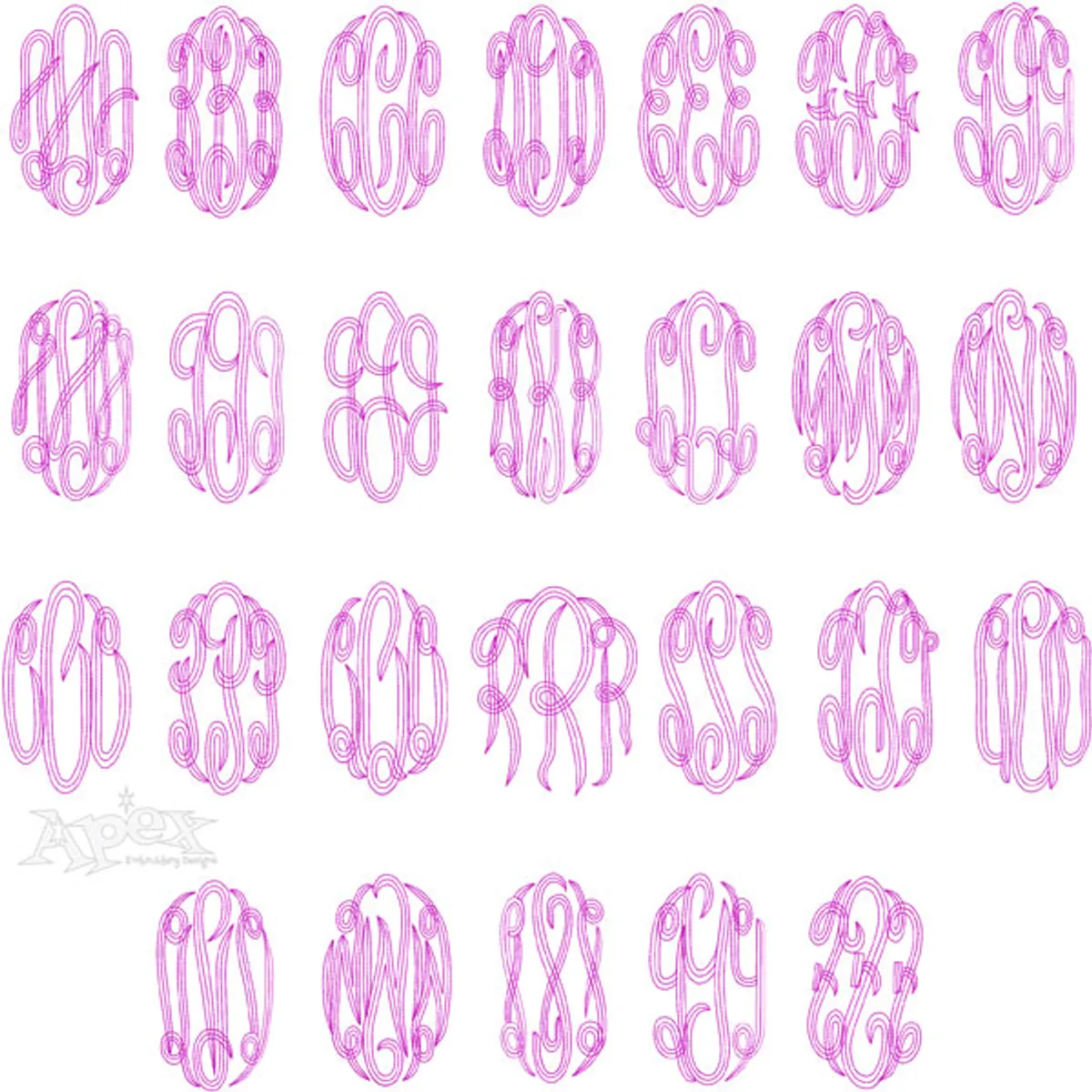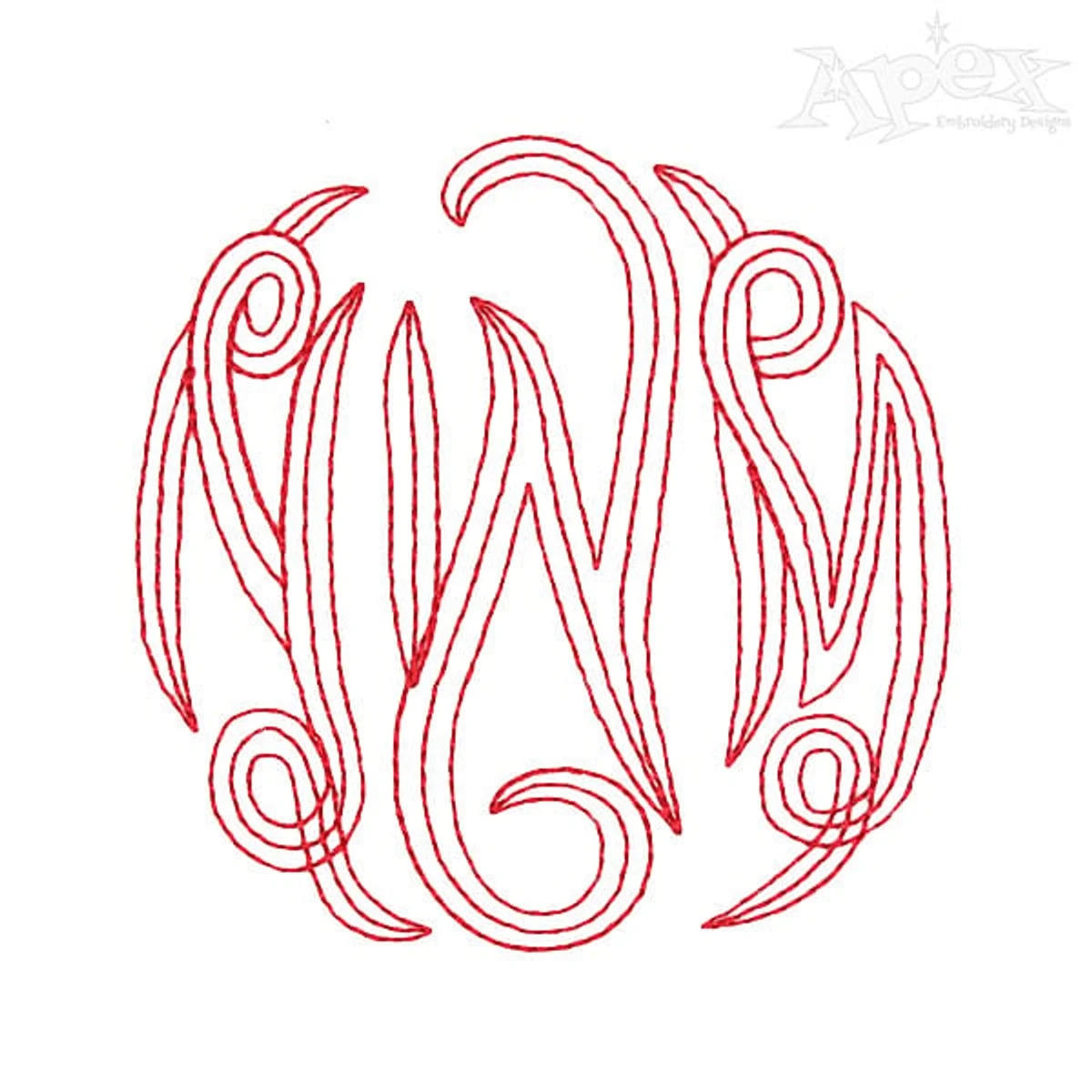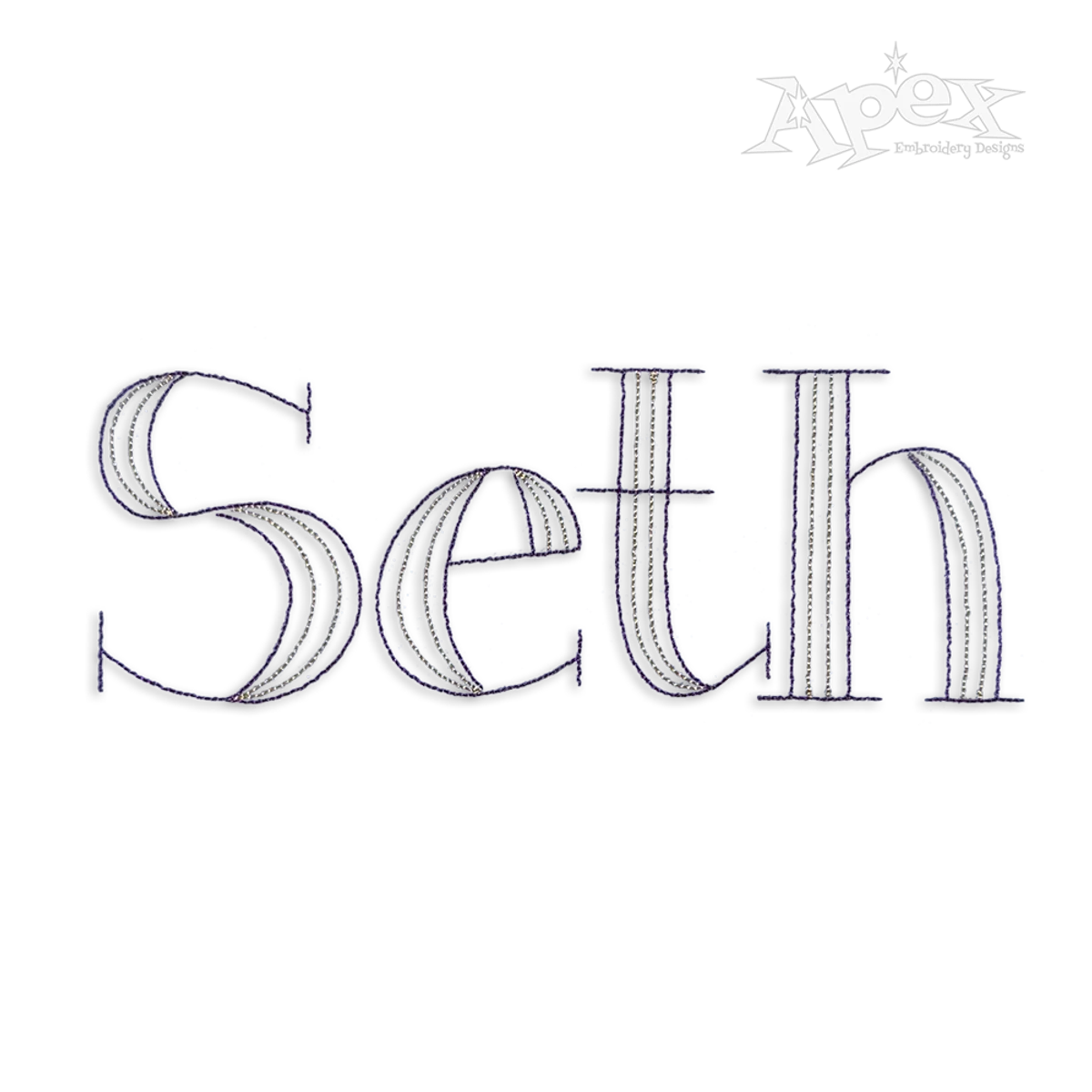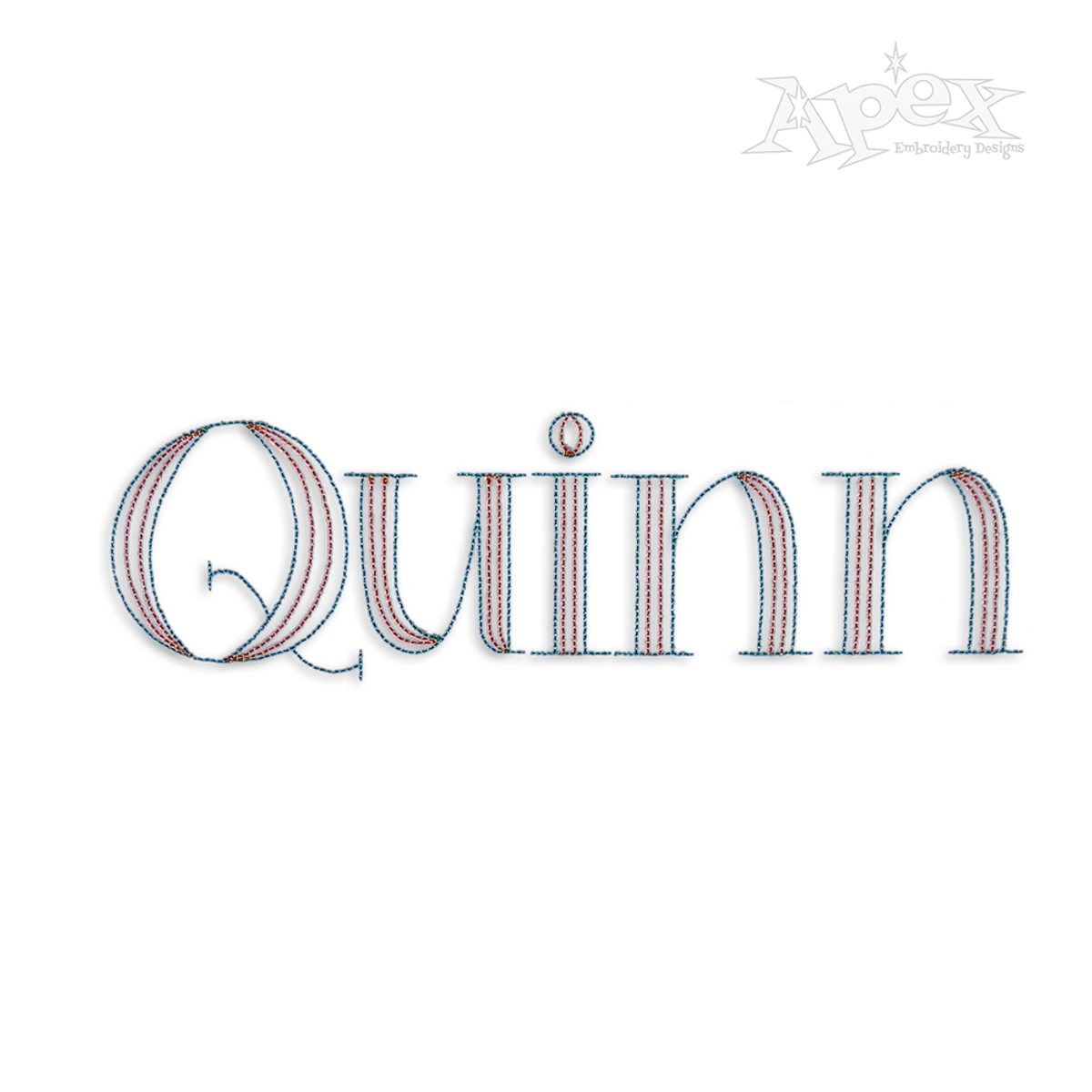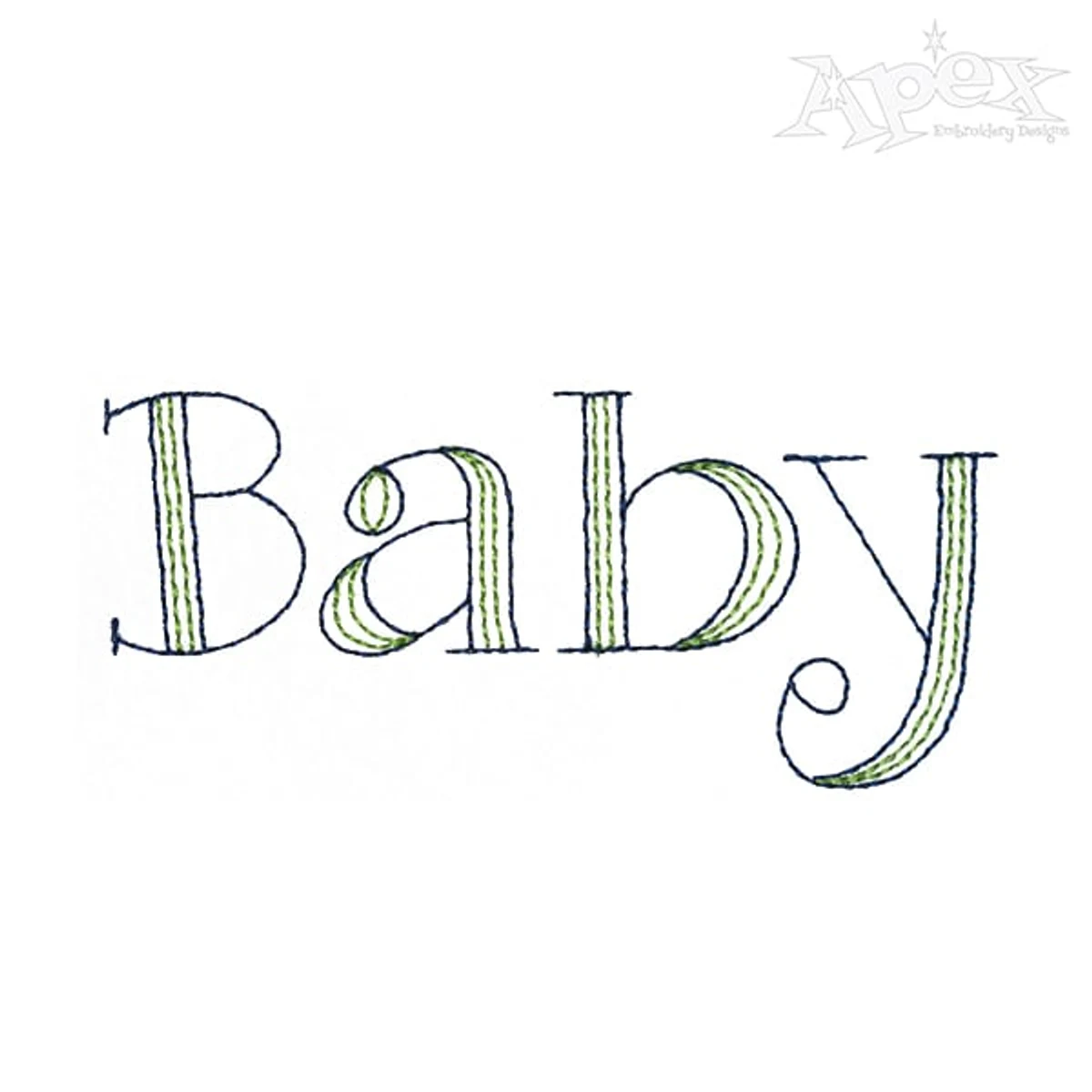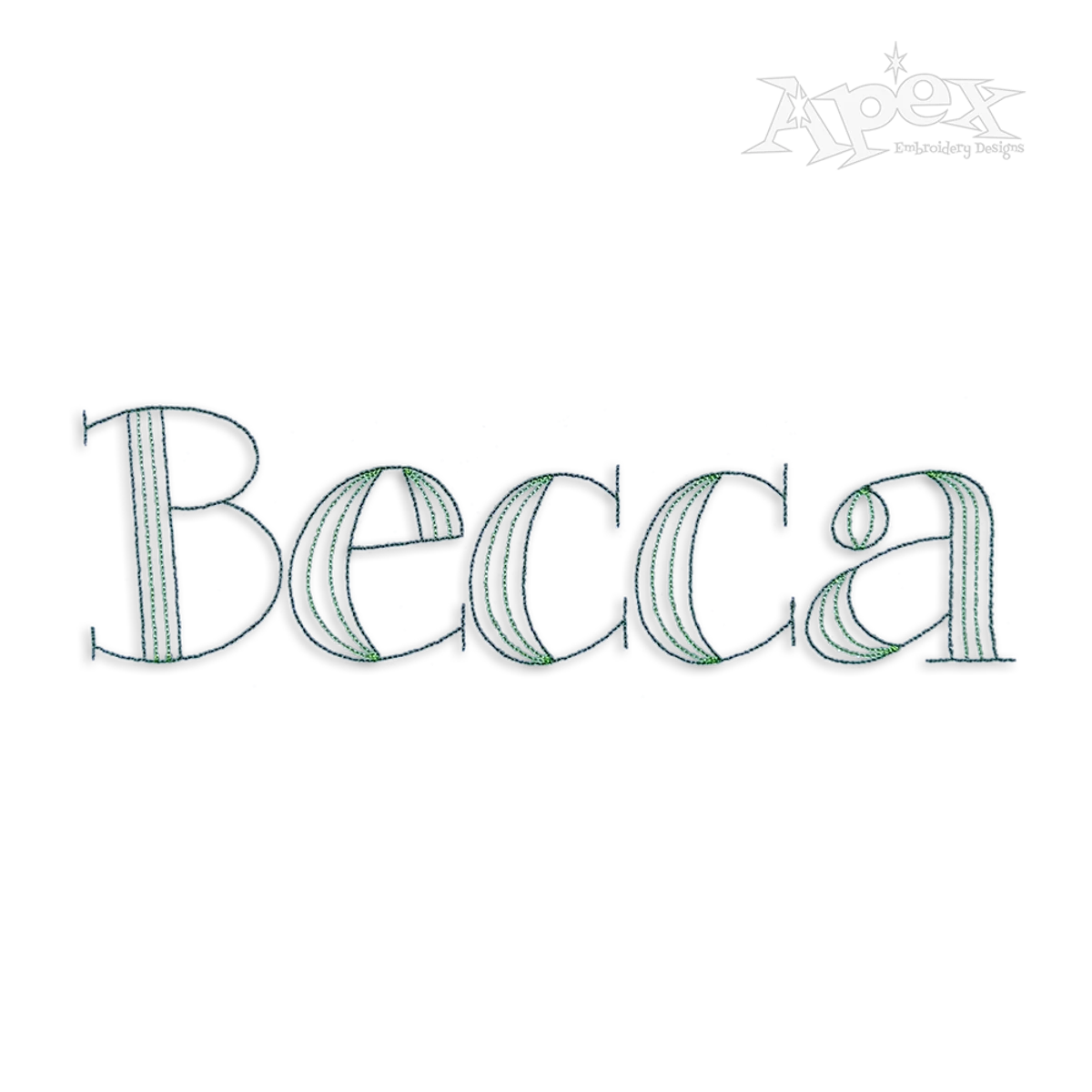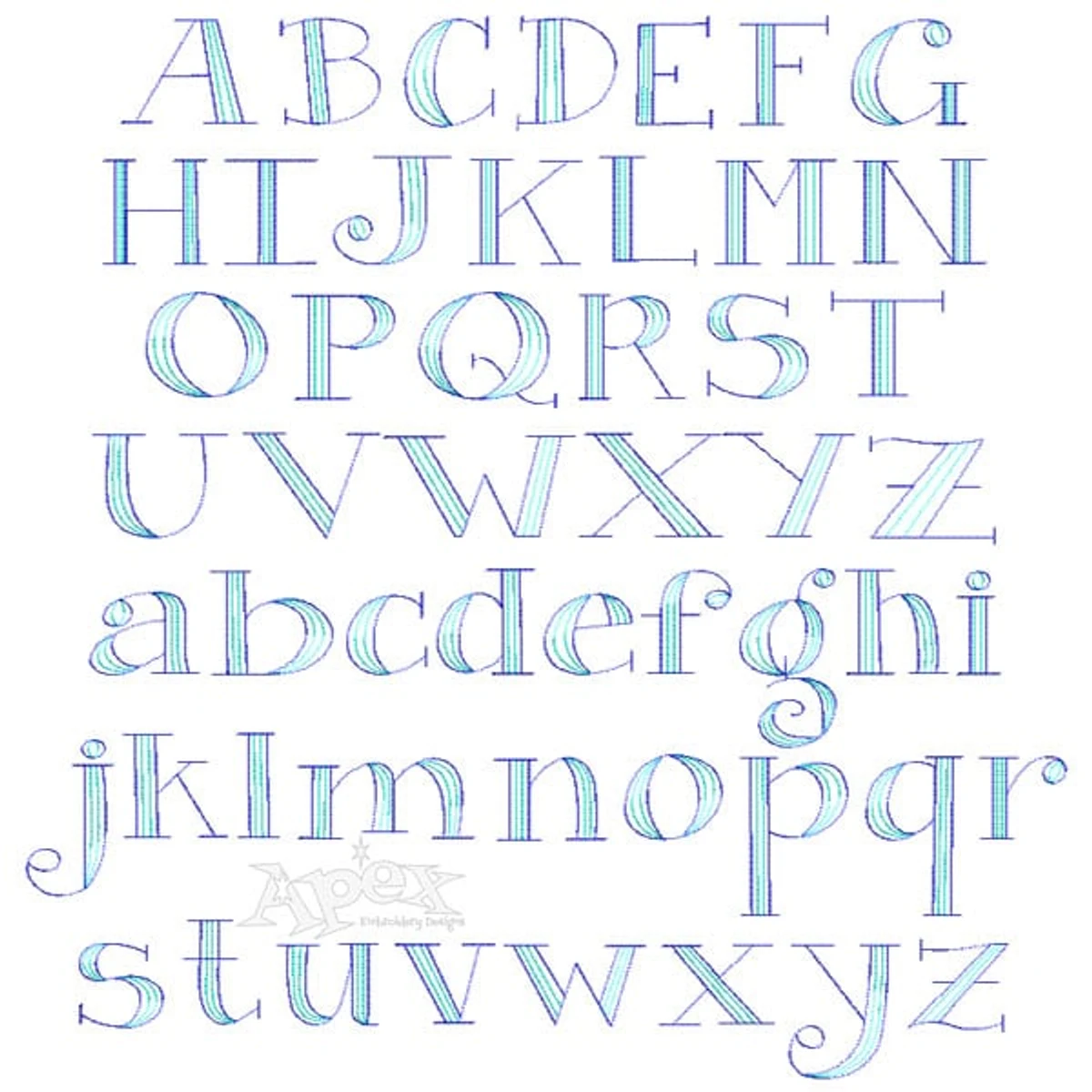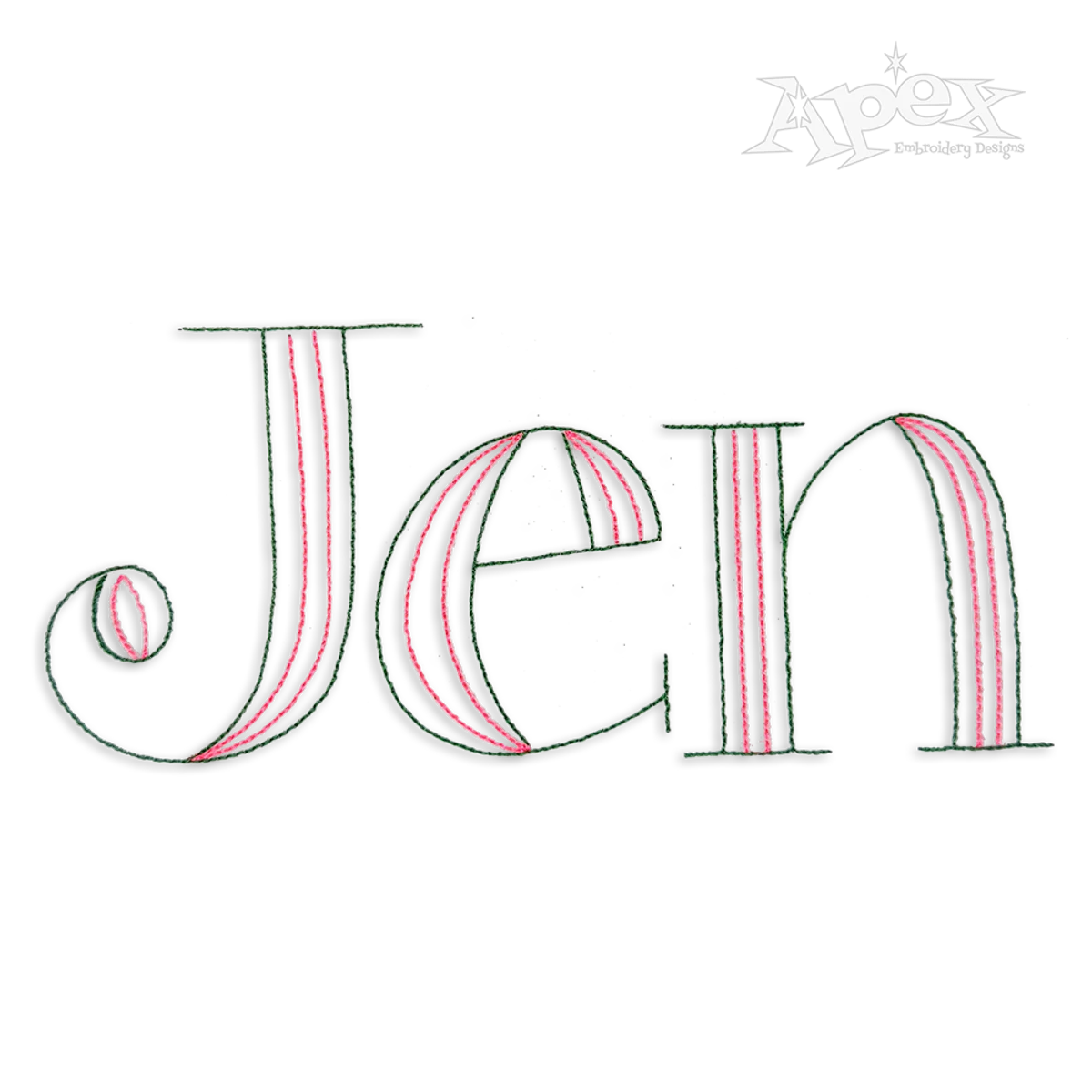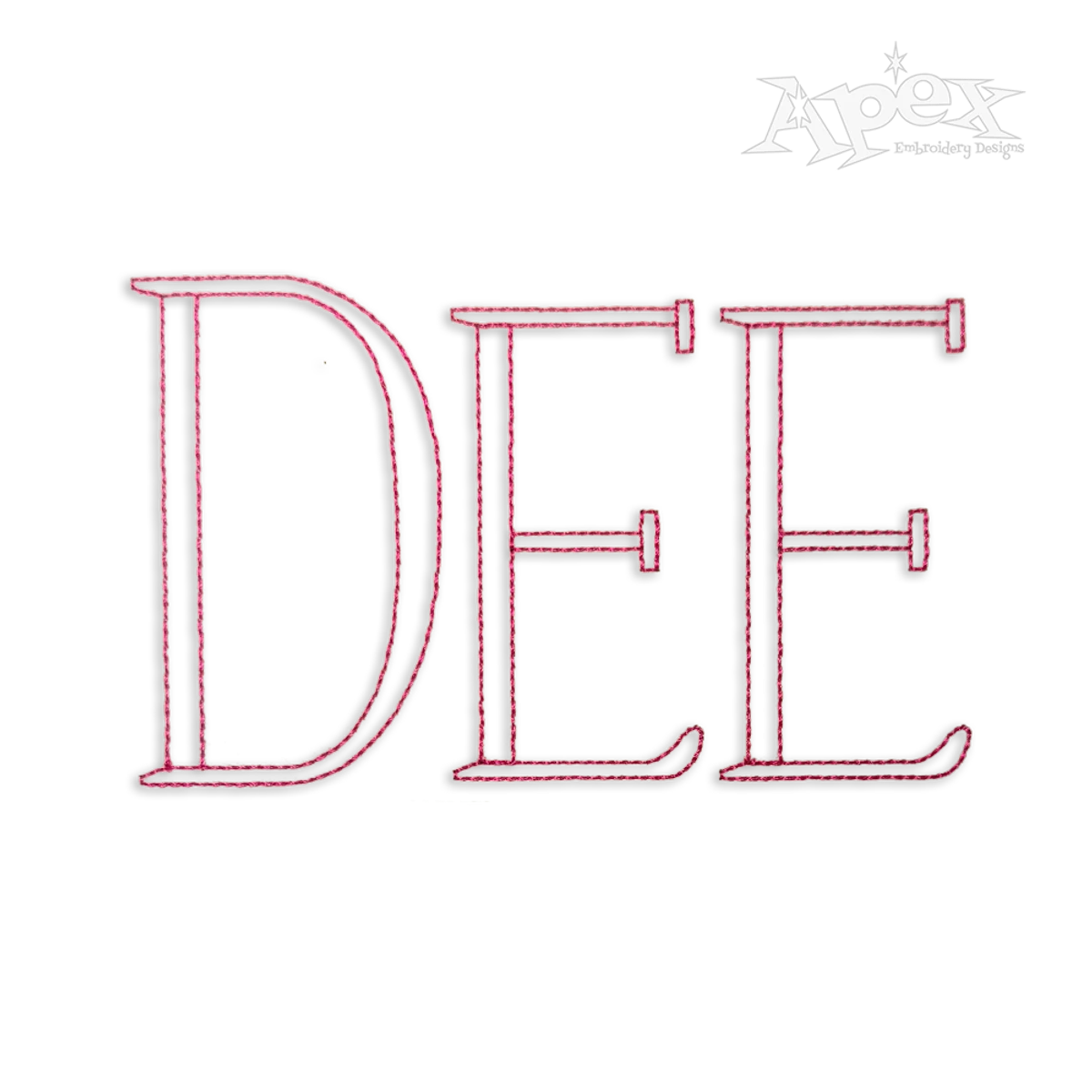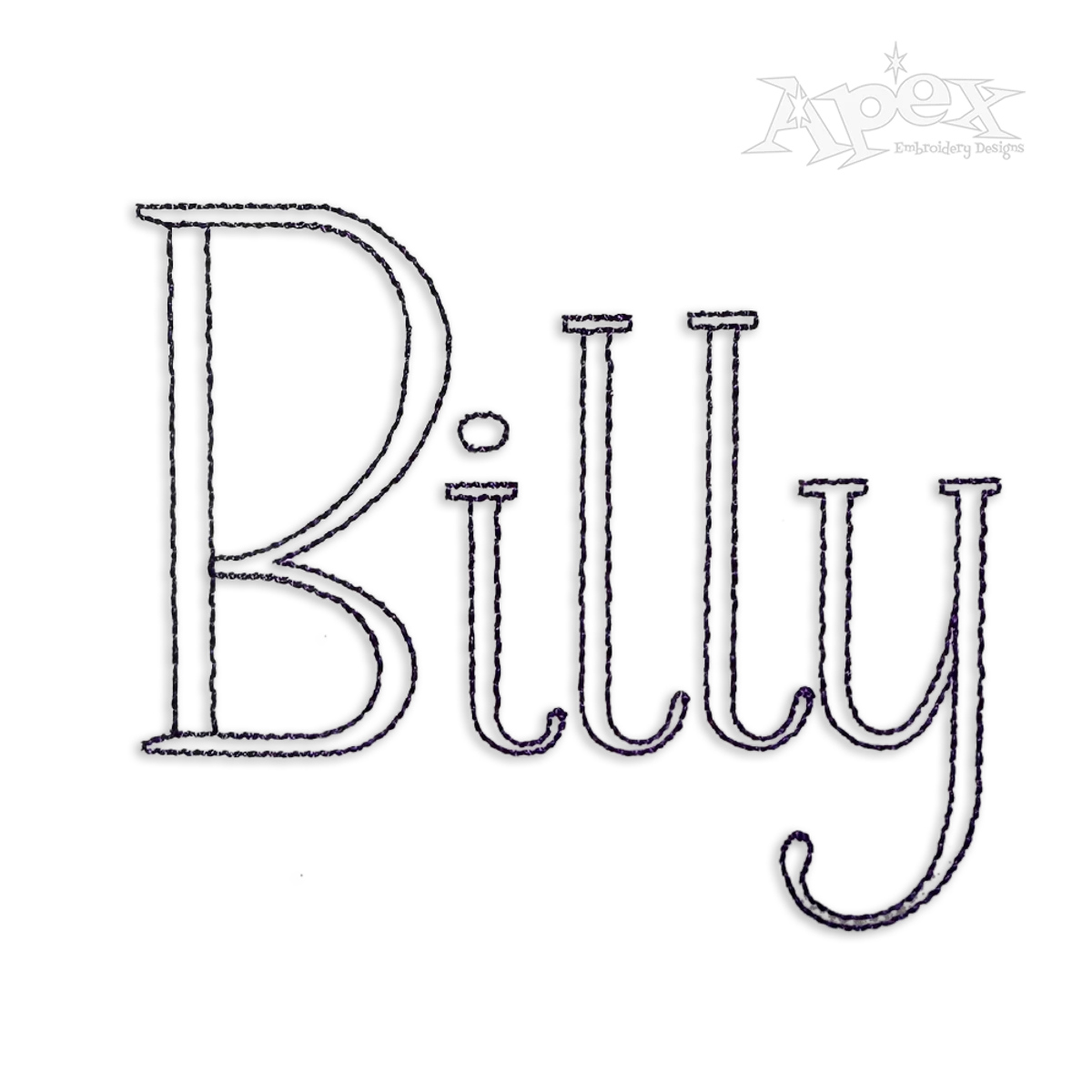
Bean Stitch Embroidery Fonts Bundle
There is an understated, nostalgic charm to the rhythmic tick of a bean stitch needle moving across crisp linen or plush cotton piqué. Unlike dense satin columns that sit heavily atop woven fibers, an artisan bean stitch—with its disciplined triple-pass travel—melds gracefully into the ground cloth, evoking the handmade soul of heritage hand-embroidery. We curated and digitized the Bean Stitch Embroidery Fonts Bundle to celebrate this breezy, low-profile elegance across eight distinctive typographic personalities. Designed for makers who cherish fast, puckering-free stitchouts without compromising on refined bespoke style, this collection brings effortless character to every project from sweet heirloom nursery linens to contemporary resort wear.
- Apex Round Bean Monogram: 3-inch, 4-inch, and 5-inch sizes (interlocking circular silhouette)
- Victor Bean Monogram Vivian: 3-inch, 4-inch, and 5-inch sizes (ornate vintage crest styling)
- Watkins Bean: 4-inch, 6-inch, and grand 8-inch sizes (bold architectural presence)
- Sydney Bean Monogram: 3-inch, 4-inch, and 5-inch sizes (fluid coastal-modern lettering)
- Curlz Maren Bean Monogram: 3-inch, 4-inch, and 5-inch sizes (playful, whimsical looping serifs)
- Baby 2-Color Sketch Bean Stitch: 2-inch, 3-inch, and 4-inch sizes (dual-thread textured nursery font)
- Emily Lime Bean: 1-inch, 2-inch, and 3-inch sizes (petite, sweet handwriting script)
- Bean Run Stitch (Outline Alphabet): 1-inch, 2-inch, and 3-inch sizes (minimalist linear letterforms)
Bean Stitch Embroidery Fonts Bundle Craft & Letterform Details
The beauty of a digitized bean stitch lies in its structural rhythm. Rather than building heavy blocks of thread, each letterform in this bundle relies on a meticulously calibrated forward-back-forward path. This triple-run stitch architecture delivers rich, thread-painted line weight that stands out boldly against the texture of wovens, knits, and terry loops, yet stitches in a fraction of the time required by traditional satin monograms.
Every font in this 8-style suite was tailored to fulfill a unique design voice. The Apex Round Monogram frames initials within a harmonious, rounded geometry that nestles modern aesthetics into classic monogram traditions. Victor Vivian draws upon opulent European crests, featuring gracefully tapered flourishes that mimic hand-drawn calligraphy. Watkins Bean brings substantial, high-impact presence with towering letterforms that anchor large-scale accessories with athletic, collegiate authority. Sydney Bean provides a relaxed, coastal sophistication with flowing curves, while Curlz Maren injects pure, joyous movement into children’s garments and festive holiday sets.
For tender moments, the Baby 2-Color Sketch font balances soft interior bean-stitch shading with a defining contour line, achieving a storybook illustration effect on lightweight jersey and organic fleece. Complementing these are Emily Lime Bean and the Bean Run outline alphabet, both digitizer favorites for micro-lettering, name tags, and minimalist single-line accents. By intentionally balancing travel commands and node density, we have eliminated awkward jump stitches and puckering hazards, giving your machine an effortless sewing path that feels as light as a whisper and lasts for generations.